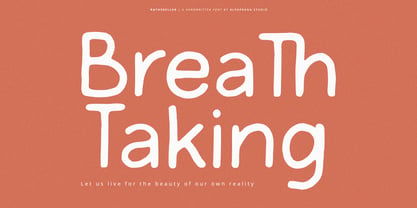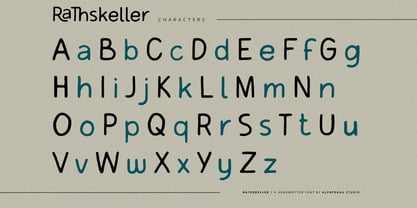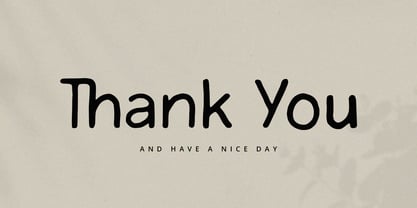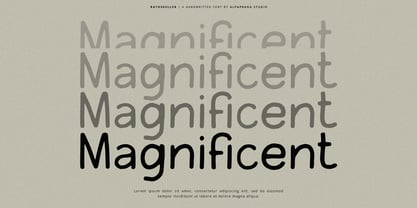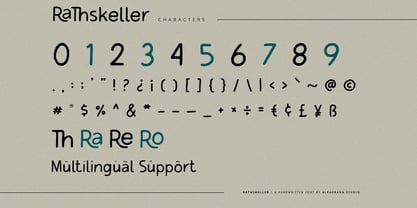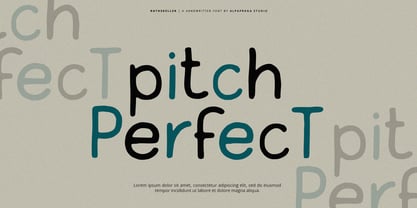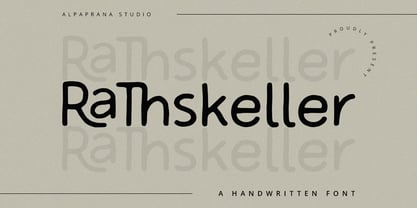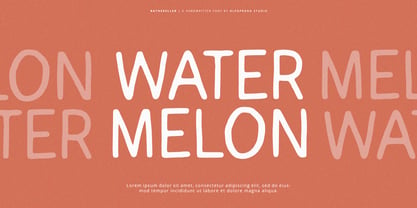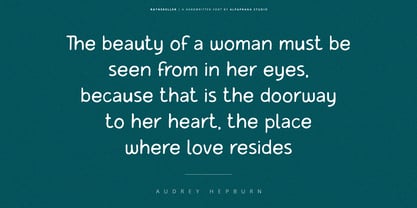
Rathskeller
by Alpaprana
The Rathskeller Font Family was designed by Nadia Salsabila and published by Alpaprana. Rathskeller contains 1 styles. More about this family
Rathskeller is a handwritten display font with natural and modern feels. It will be perfectly used for Branding, Logo Design, Lettering, Logotype, Clothing, Poster, magazine, packaging, posters, shopping bags, t-shirts, book covers, photography, special events and other design project.
Designers: Nadia Salsabila
Foundry: Alpaprana